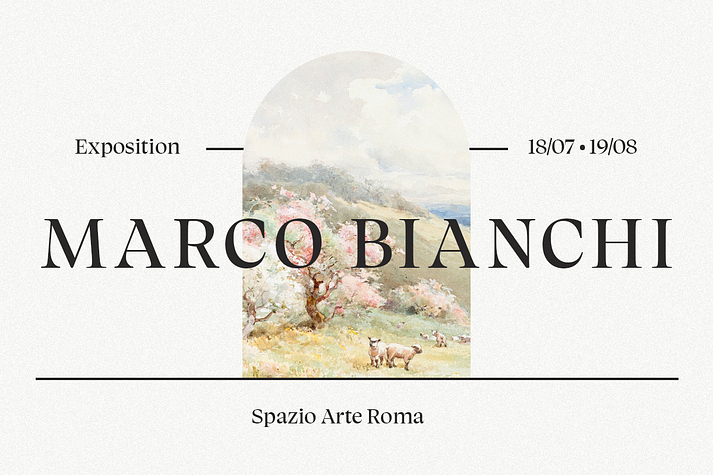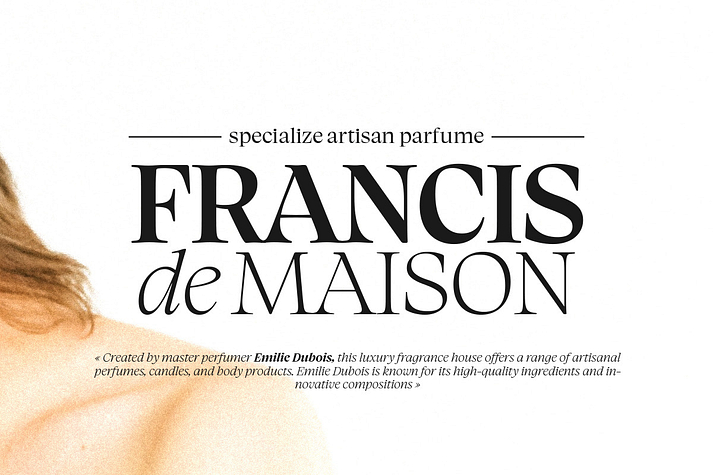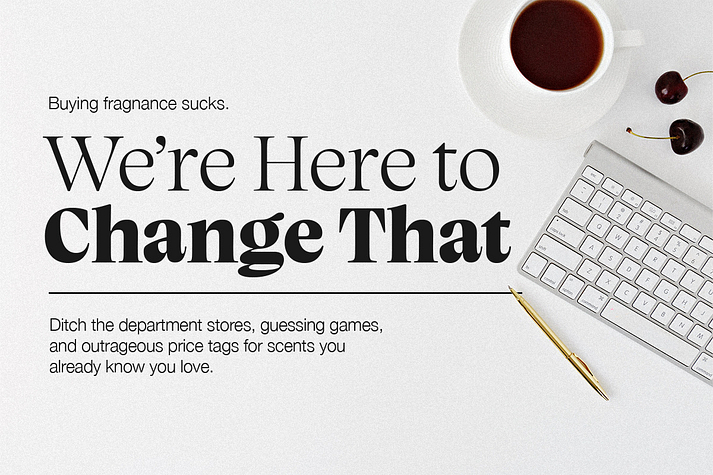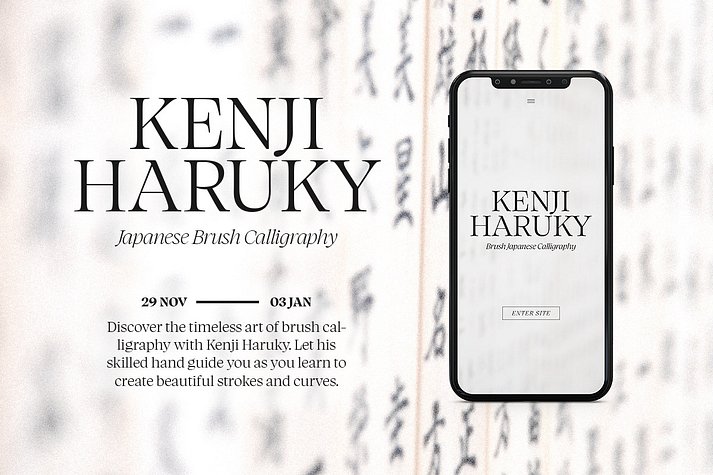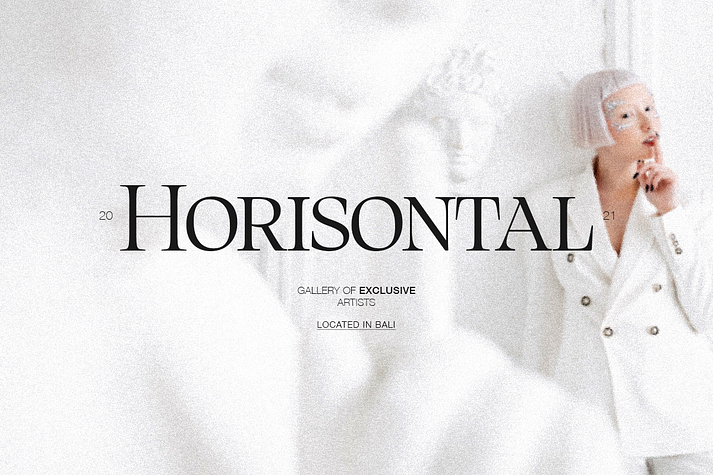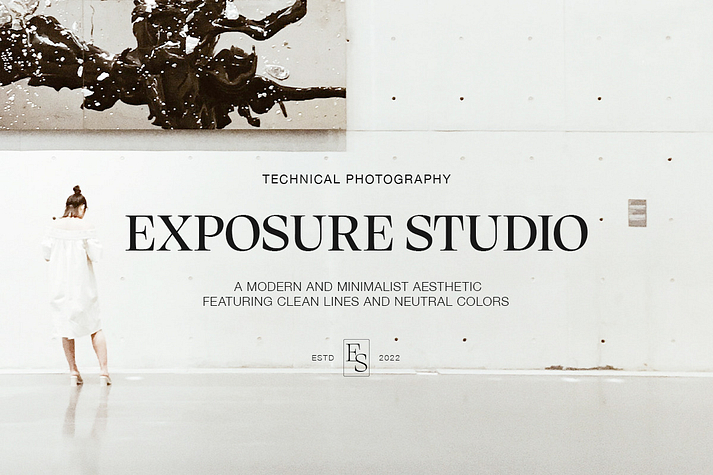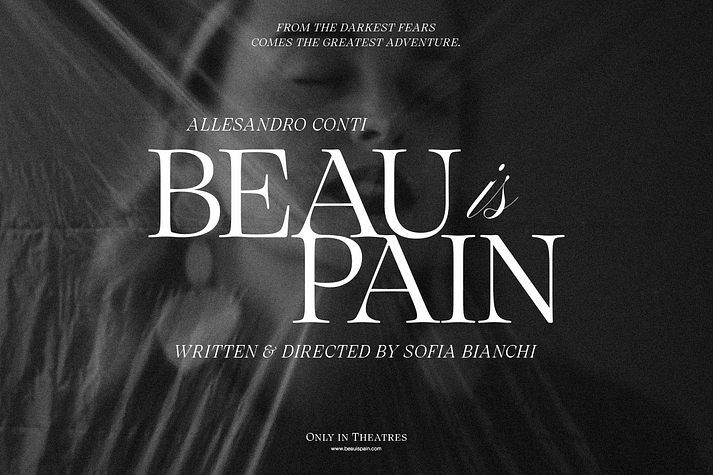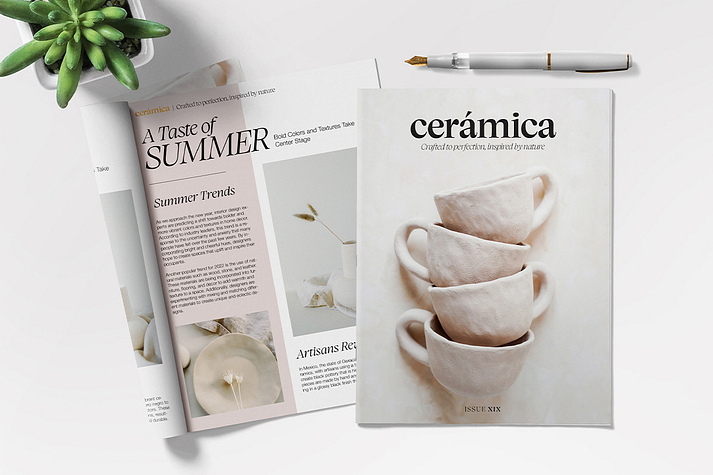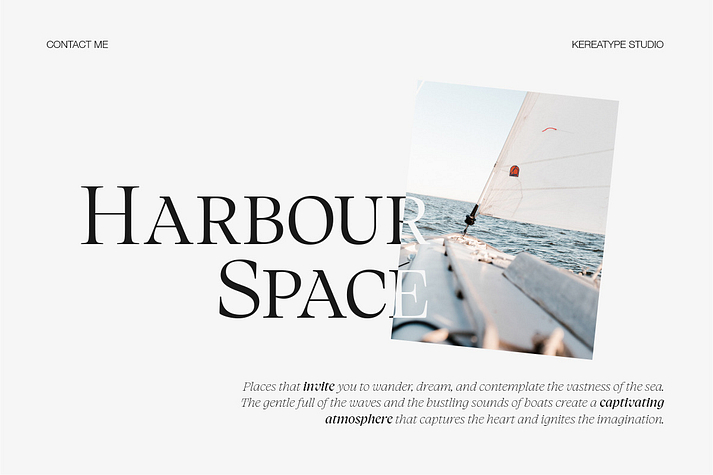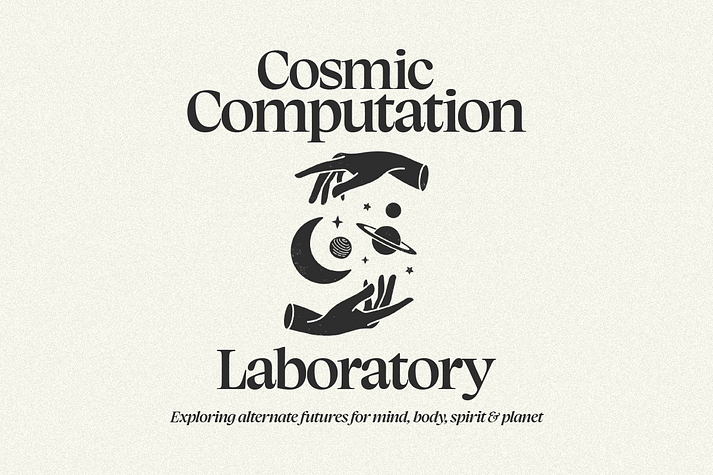
Charlea
Charlea is a display serif and serif font family. This typeface has twenty styles and was published by Kereatype.
Charlea is a serif typeface inspired by the beauty of modern serifs, fused with modern appeal to cater to contemporary needs. It includes 20 fonts ranging from Thin to Extra Black, with true italics. Charlea offers numerous possibilities for application in various graphic or editorial projects.
• 20 Styles with True Italics
• 594 Glyphs each Including Italics
• Multilingual Support
• OpenType features including stylistic sets, contextual punctuation & more